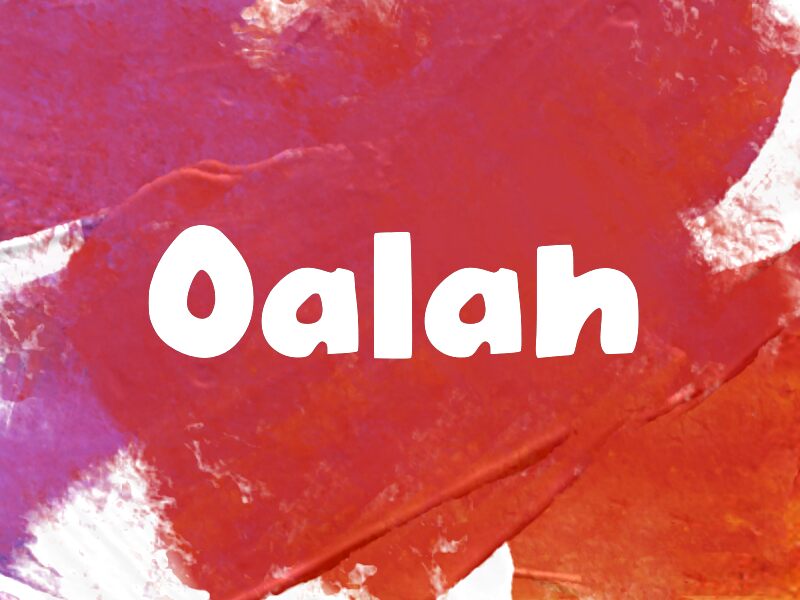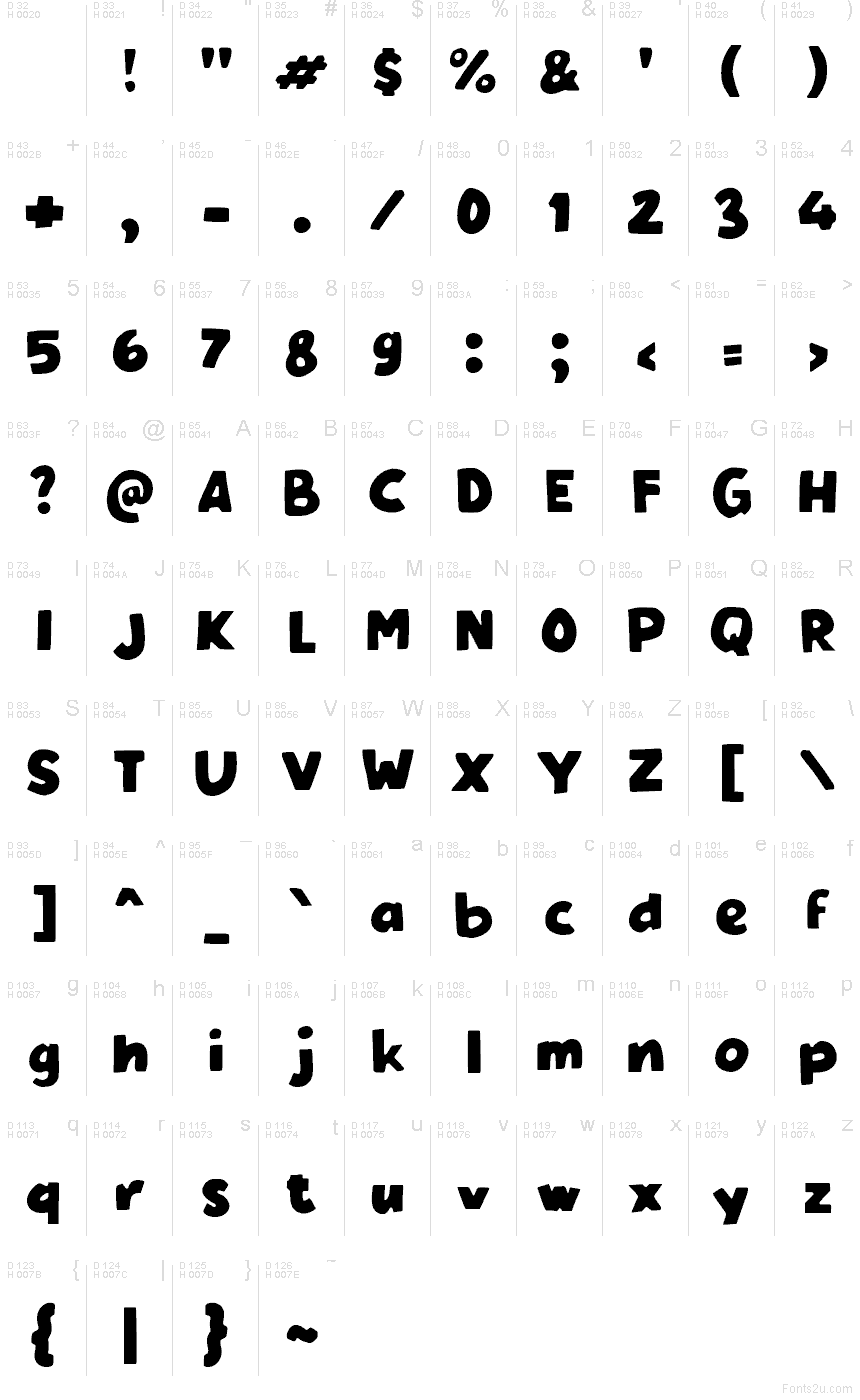
Oalah
Oalah font by wep is a free cartoon display typeface with a chunky, hand-drawn bounce that feels like it’s been painted in thick, inky strokes. The letters wobble just enough to feel playful but stay bold and compact, so headlines stay readable even at a glance. Its black, slightly irregular shapes give text a soft, squishy presence that kids and casual audiences latch onto instantly.
Using Oalah, you can bring friendly energy to children’s book covers, classroom posters, comic titles, party invitations, YouTube thumbnails, and playful branding. This free font shines when used big and loud, letting those rounded forms fill the space. Pair Oalah with a clean, light sans-serif for body text to keep layouts fun but still easy to read.